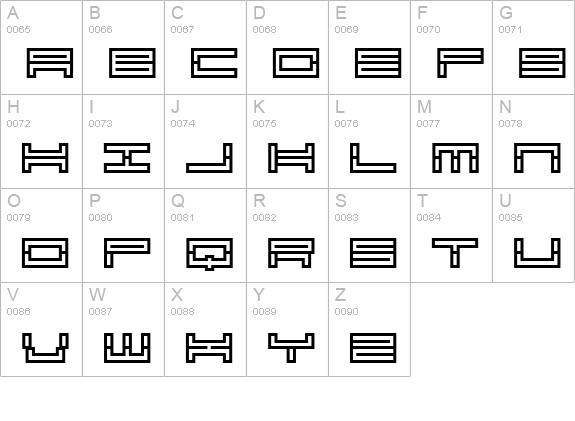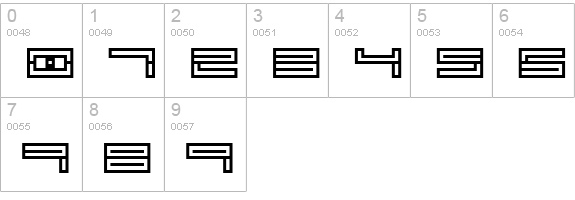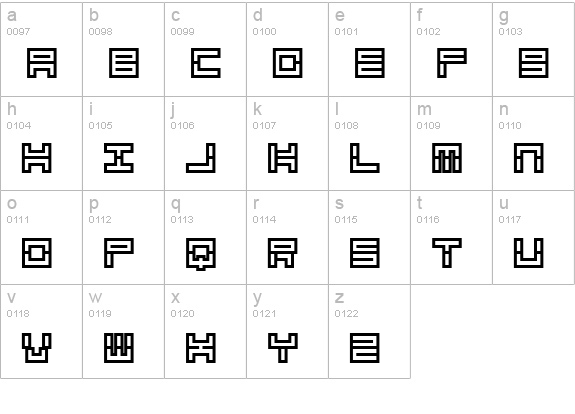
Pile Outline Font Details
Pile Outline font is a stunning and versatile typeface that will elevate any design project to new heights. With its clean lines and unique outline style, this font is perfect for creating eye-catching headlines, logos, posters, and more. What sets Pile Outline font apart is not only its exceptional design but also its accessibility. It is available for free download at FontsMarket.com, making it accessible to designers and creatives of all levels. Whether you're working on a personal project or a professional assignment, Pile Outline font will add a touch of sophistication and modernity to your work. Its sleek and contemporary aesthetic is sure to capture attention and leave a lasting impression. With its wide range of weights and styles, Pile Outline font offers endless possibilities for customization. From light and airy to bold and impactful, this font can be tailored to suit any design concept or vision. Pile Outline font is not only visually striking but also highly legible, ensuring that your message is conveyed effectively. Its clean and well-defined outlines make it easy to read in various sizes and across different mediums. So why wait? Take advantage of this incredible opportunity to enhance your designs with Pile Outline font. Download it for free at FontsMarket.com and unlock a world of creative possibilities. Whether you're a seasoned designer or just starting out, this font is sure to become an invaluable asset in your toolkit. Don't miss out on this fantastic opportunity – get Pile Outline font today and elevate your designs to a whole new level.